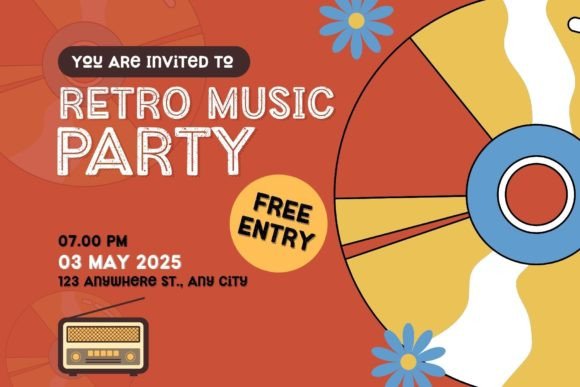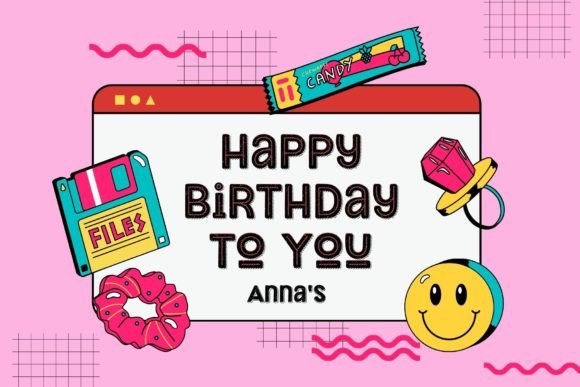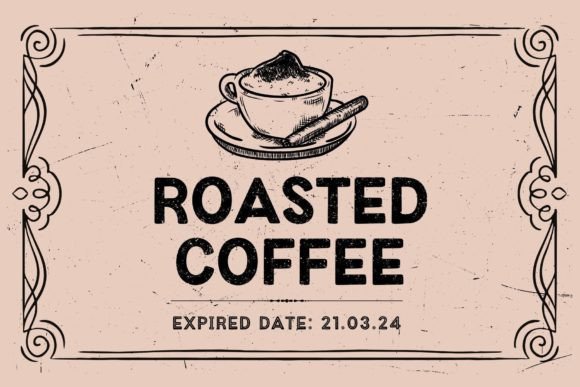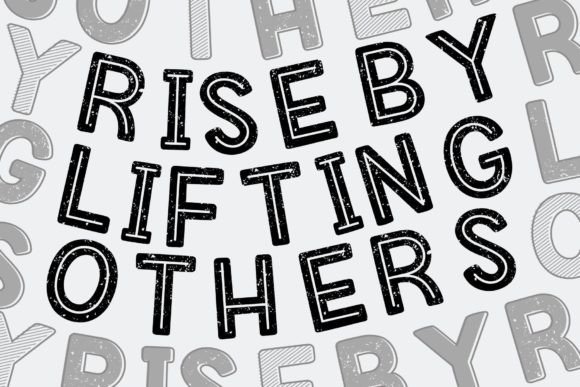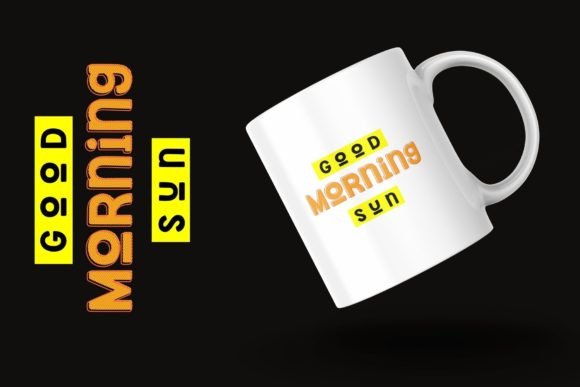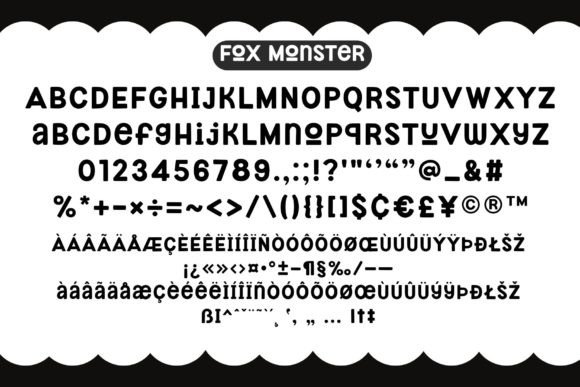
The Perfect Font to Unleash Your Inner Creativity
Have you ever been brainstorming a new project, and suddenly, the perfect idea strikes you? The words start flowing, and you can almost see the design taking shape in your mind. For designers, moments like these are what drive us to create something truly unique and captivating. That’s where Fox Monster Font comes in – a 5-style display font that adds a cool and fun twist to your designs.
Whether you’re working on a publication, menu, logo, or even a t-shirt design, Fox Monster Font is the perfect tool to add an extra layer of personality to your work. Its vibrant and expressive design makes it a valuable asset for designers who want to create attention-grabbing headlines, banners, and product labels that stand out from the crowd.
With Fox Monster Font, the possibilities are endless, and your creativity can shine through in every design you create.
Fox Monster Font Key Features
- Font Family: Fox Monster Font is a unique, hand-drawn font family designed for various applications.
- Character Count: The font family includes over 300 characters, including uppercase and lowercase letters, numbers, and special symbols.
- Unique Characteristics: Features a playful, cartoonish design with bold lines, rounded edges, and expressive letterforms, making it perfect for children’s books, comics, and other creative projects.
Design Review: Fox Monster Font
The Fox Monster Font is an interesting addition to the world of fonts, offering a unique blend of cute and menacing characteristics. ✨ Its playful, childlike feel can be quite charming in the right context.
- ✨ Expressive character set, featuring a range of emotions and poses.
- ✨ Well-suited for use in children’s media, entertainment, or fantasy-themed projects.
- ✨ Offers a distinctive, memorable look that can help your content stand out.
- ⚠️ Limited legibility, particularly at smaller font sizes.
- ⚠️ May not be the best choice for formal or professional projects.
- ⚠️ Can be overwhelming if used excessively or without proper balance.
Overall, the Fox Monster Font is a fun, quirky addition to any designer’s toolkit. While it may not be suitable for every project, it’s perfect for those looking to inject some whimsy and personality into their work.
Tips for Getting the Most Out of Fox Monster Font
For best results, use Fox Monster Font in bold or italic styles to add emphasis and create visual interest.
Experiment with different font sizes and combinations to create unique and eye-catching designs.
Fox Monster Font is ideal for use in:
- Cartoon-style graphics
- Fun and playful branding
- Whimsical and imaginative designs